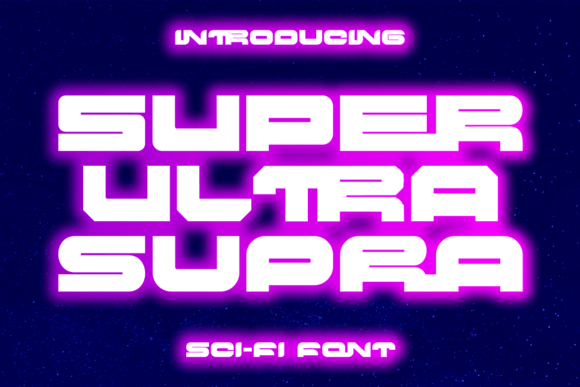
Dive into the realm of the extraordinary with Super Ultra Supra, the font that shatters boundaries and propels your designs into the future. This remarkable display font is engineered with precision to evoke a captivating sci-fi ambiance, capturing the essence of innovation and modernity. Its rigid lines and bold strokes command attention, leaving an unforgettable impression.
Crafted with versatility in mind, Super Ultra Supra offers three distinct versions, allowing you to seamlessly adapt it to your creative vision. Whether you seek a sleek and striking logo, an eye-catching poster, or a captivating magazine layout, this font rises to the challenge effortlessly. Its inherent flexibility makes it the perfect partner for branding projects, sports-related designs, and any endeavor that demands a powerful and progressive font.
Unleash your boundless creativity with Super Ultra Supra's extensive ligature collection, a treasure trove of unique glyphs that add an extra layer of sophistication to your designs. Experiment with various combinations to create captivating titles, headlines, and text elements that leave a lasting impact. The possibilities are as limitless as your imagination.
Super Ultra Supra is not just a font; it's a gateway to a world of limitless expression. Its PUA encoding ensures effortless access to the entire glyph library, empowering you to effortlessly incorporate stunning characters and ligatures into your designs. Experience the freedom to craft truly exceptional visual masterpieces that resonate with your audience.
Join the ranks of creative visionaries who have harnessed the power of Super Ultra Supra to elevate their designs to new heights. Let this font ignite your imagination and propel your projects into the future of design. Embrace the extraordinary and leave an indelible mark on your audience with Super Ultra Supra.